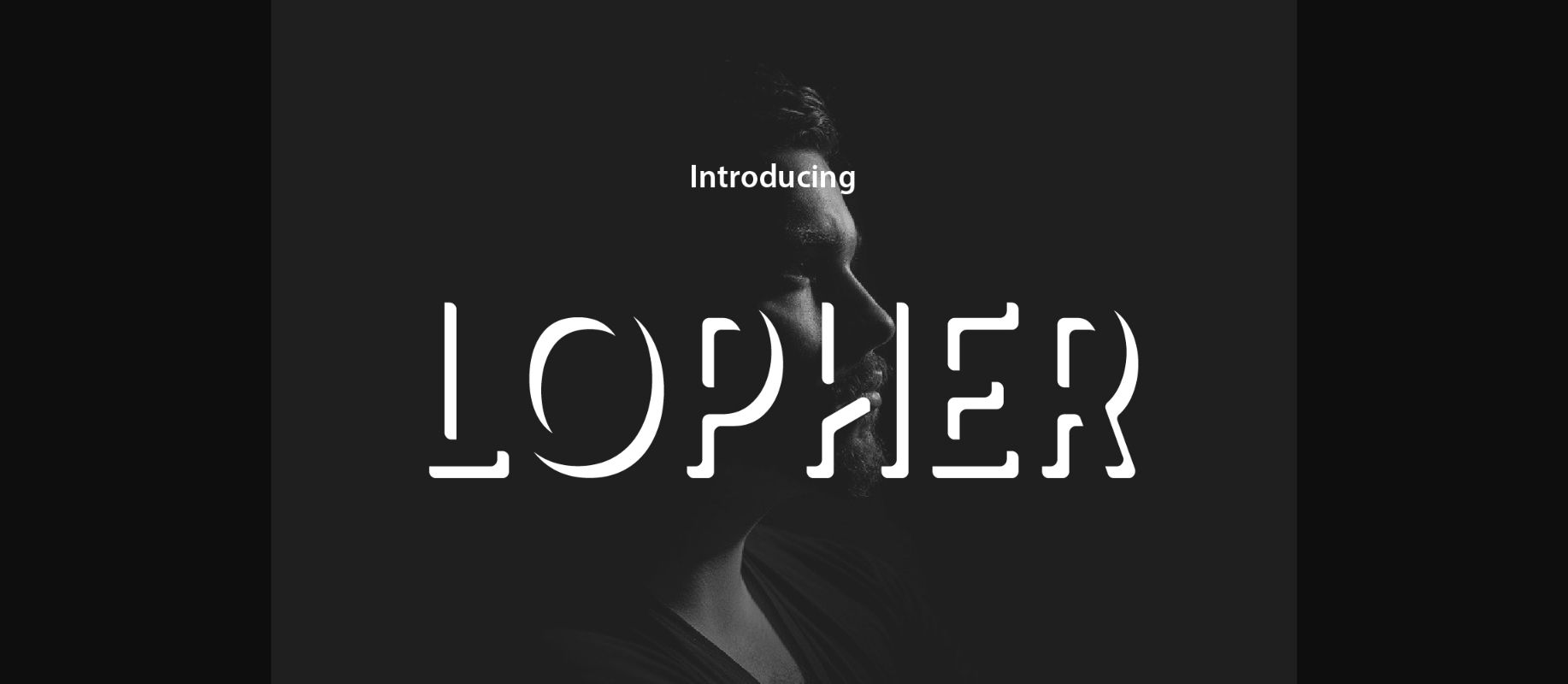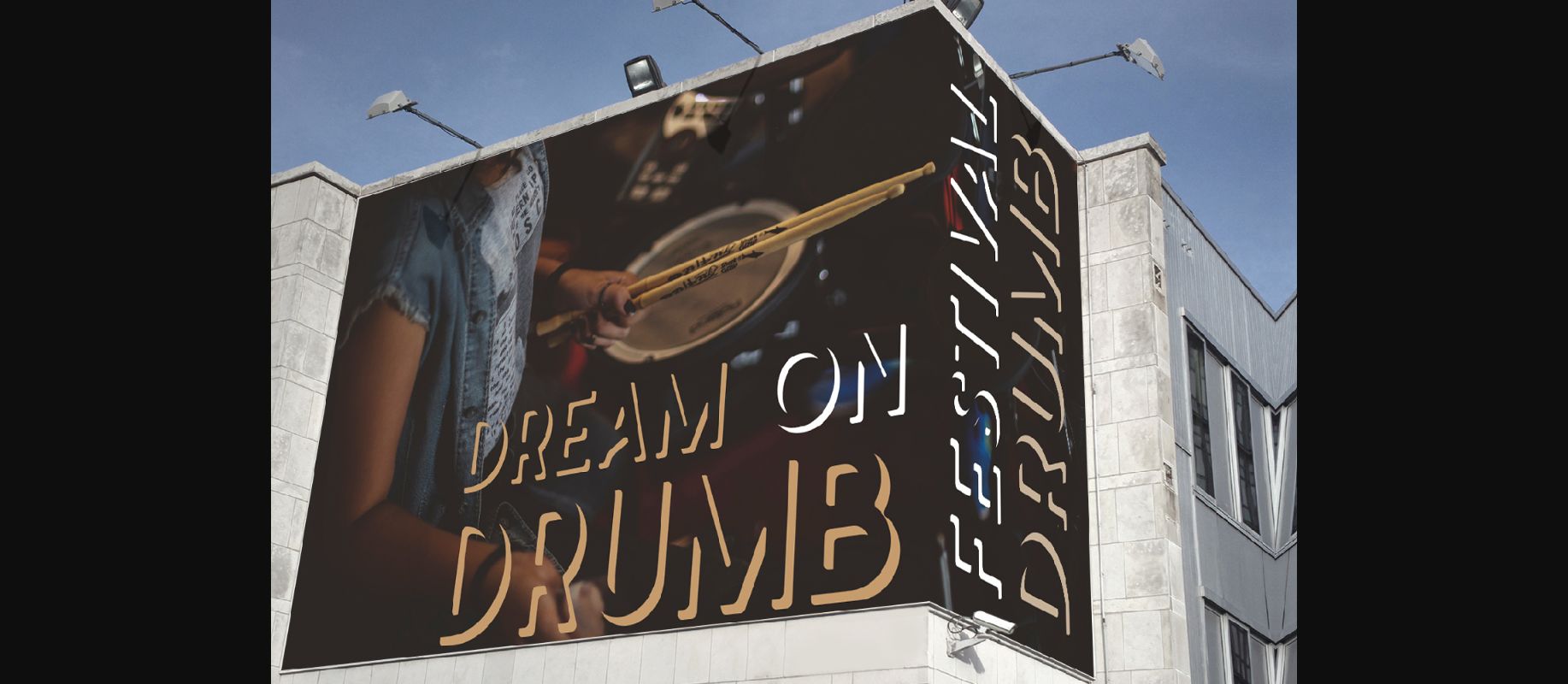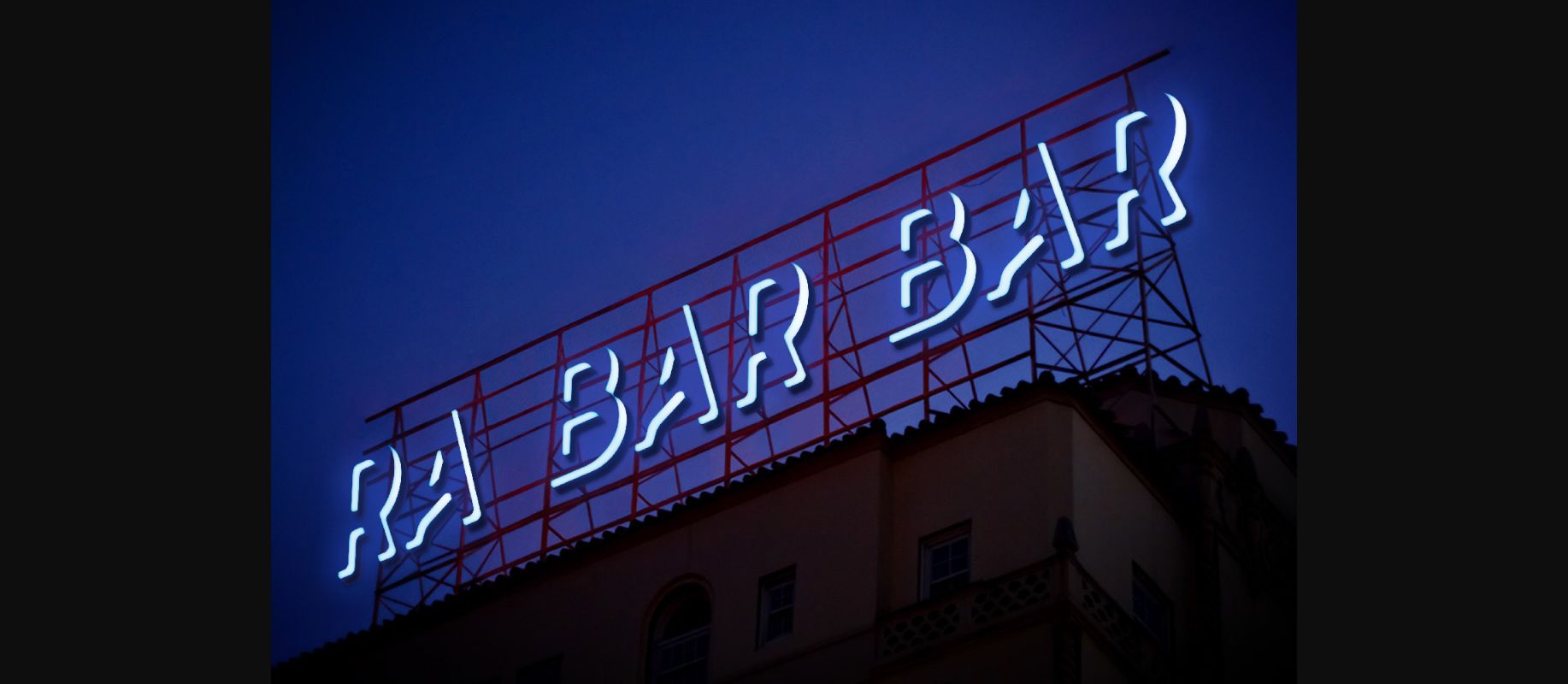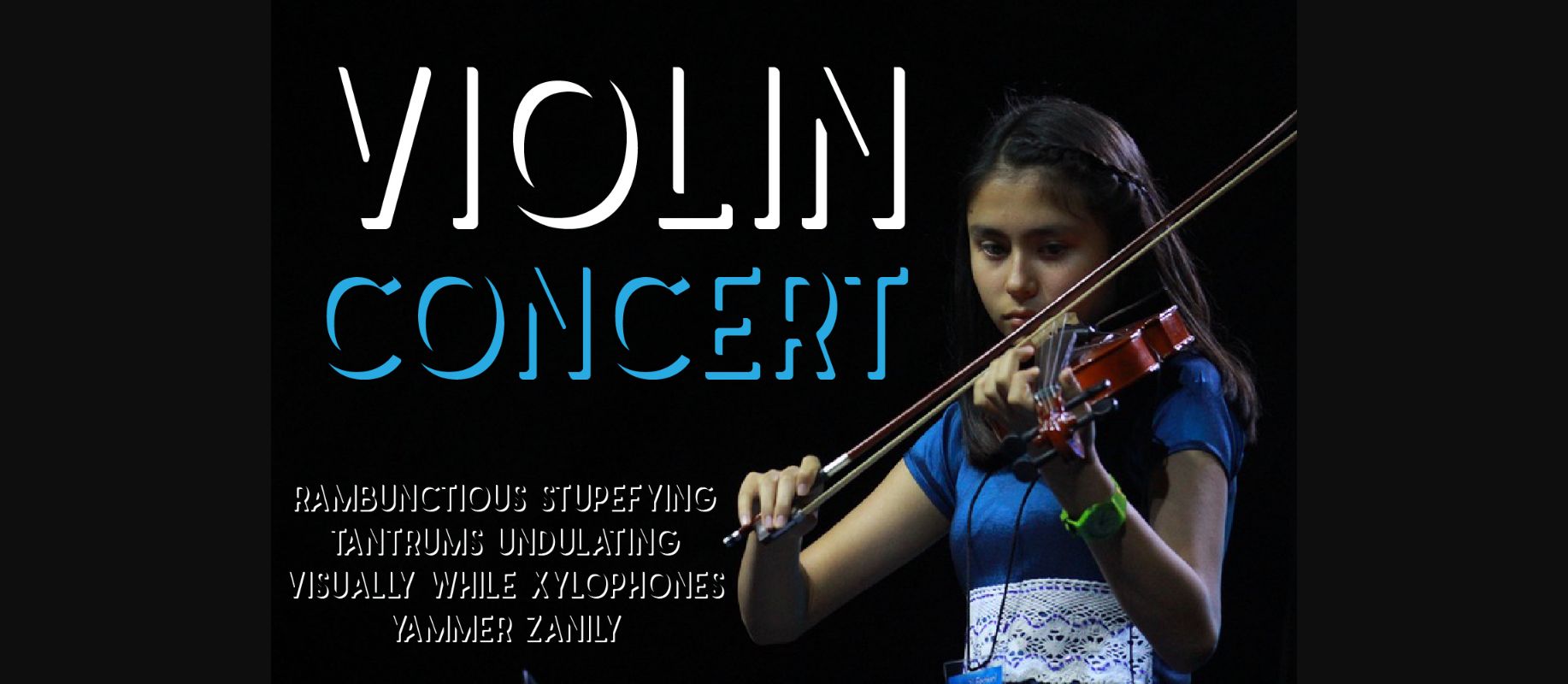
Lopher Font
About Lopher Font
Lopher is a retro-looking sans serif font that is inspired by Mid-century signposts. It will deliver any message with sincerity and style.